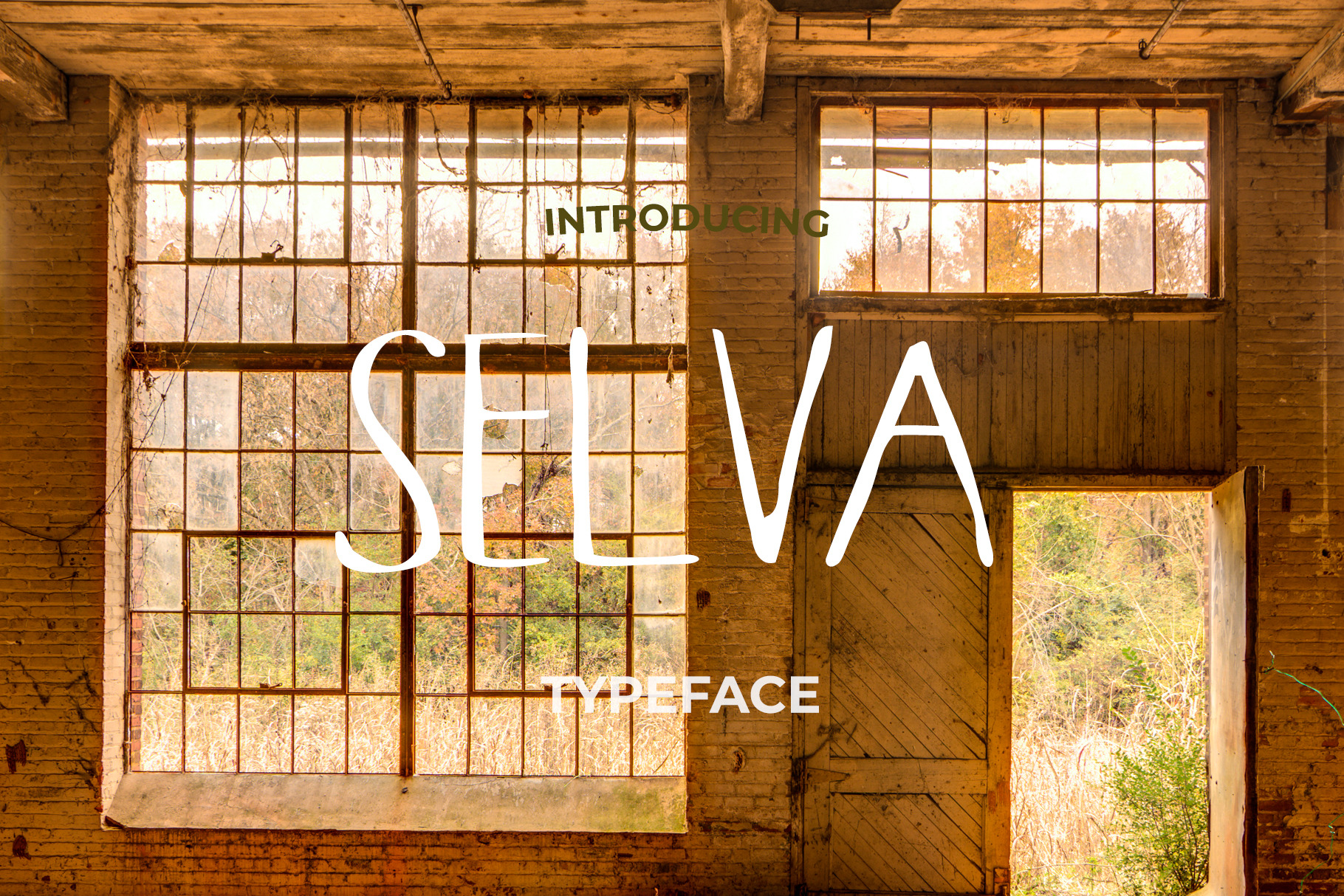
Selva Hand Typeface
SELVA is a set of three varying width simple hand lettered three font family with a is a hand sketched minimalist style. Great for those natural logos and quotes, Selva is also quite legible at small sizes as body copy.
This family looks amazing on wedding invitations, signage, quotes, and even websites! Test it out in the sample box to see how your company name, wedding date, or favorite quote will look using Selva Font set! It also includes 6 free logo templates for you to use in your next branding project (for use in Adobe Photoshop and Illustrator)!
- Selva Font in three weights - Bold, Regular and Condensed (otf, ttf and woff), which pair well together
- Upper and lowercase, with MultiLanguage Support and over 750 Glyphs each!